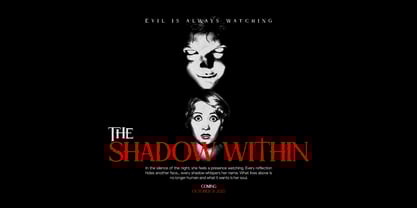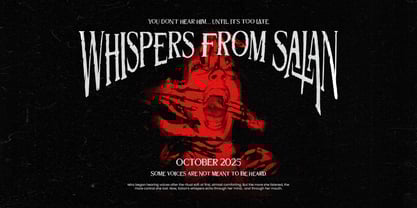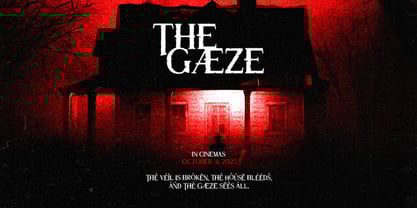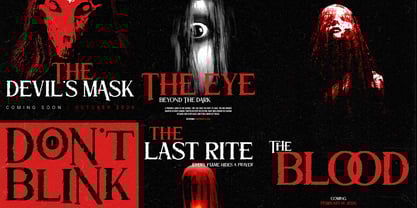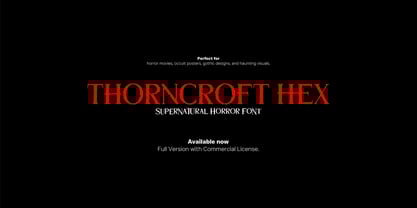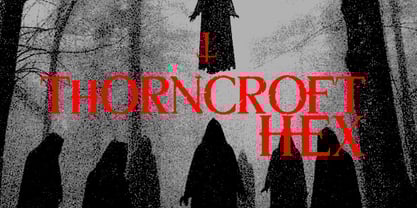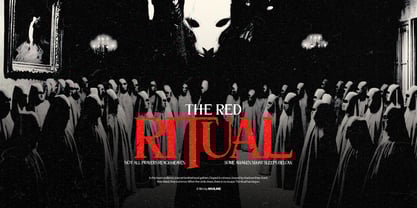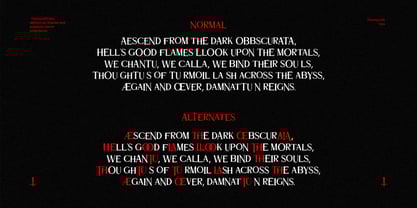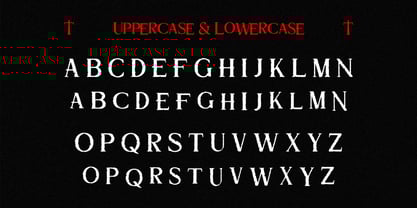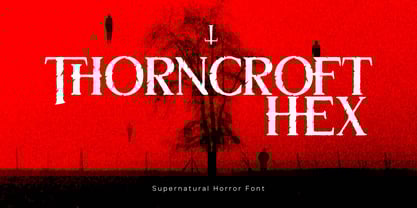
Thormcroft Hex
by Inviline
The Thormcroft Hex Font Family was designed by Virgiawan Listanto and published by Inviline. Thormcroft Hex contains 1 styles.
Thorncroft Hex is a captivating serif horror font that embodies the essence of dark magic, demonic lore, and vintage occultism. Featuring rough, thorn-like edges and unique ritualistic alternate glyphs, this font creates an unsettling atmosphere reminiscent of a cursed manuscript or a supernatural thriller. Ideal for horror movie posters, cult book covers, and sinister branding, Thorncroft Hex seamlessly merges elegance with an eerie decay, making it the ultimate typographic choice for your most haunting designs. Whether you're aiming to evoke dread or shroud your project in mystery, this font serves as your grimoire. What You Get: - Uppercase & Lowercase Letters - Alternates with ritualistic glyphs - Numbers, Punctuation, & Symbols - Multilingual Support Perfect For: - Horror Film Posters & Titles - Paranormal Book Covers - Dark Music Branding - Occult Packaging Design - Halloween Promotions
Designers: Virgiawan Listanto
Publisher: Inviline
Foundry: Inviline
Design Owner: Inviline